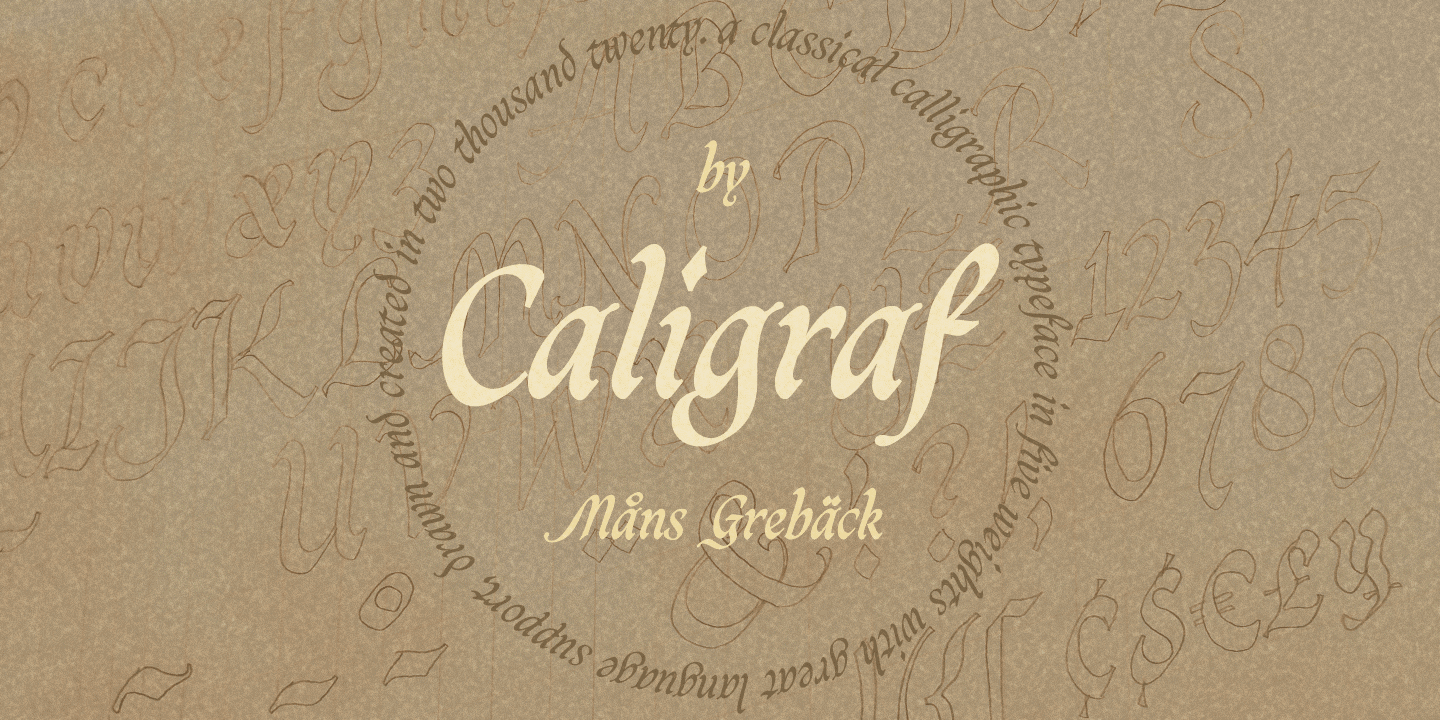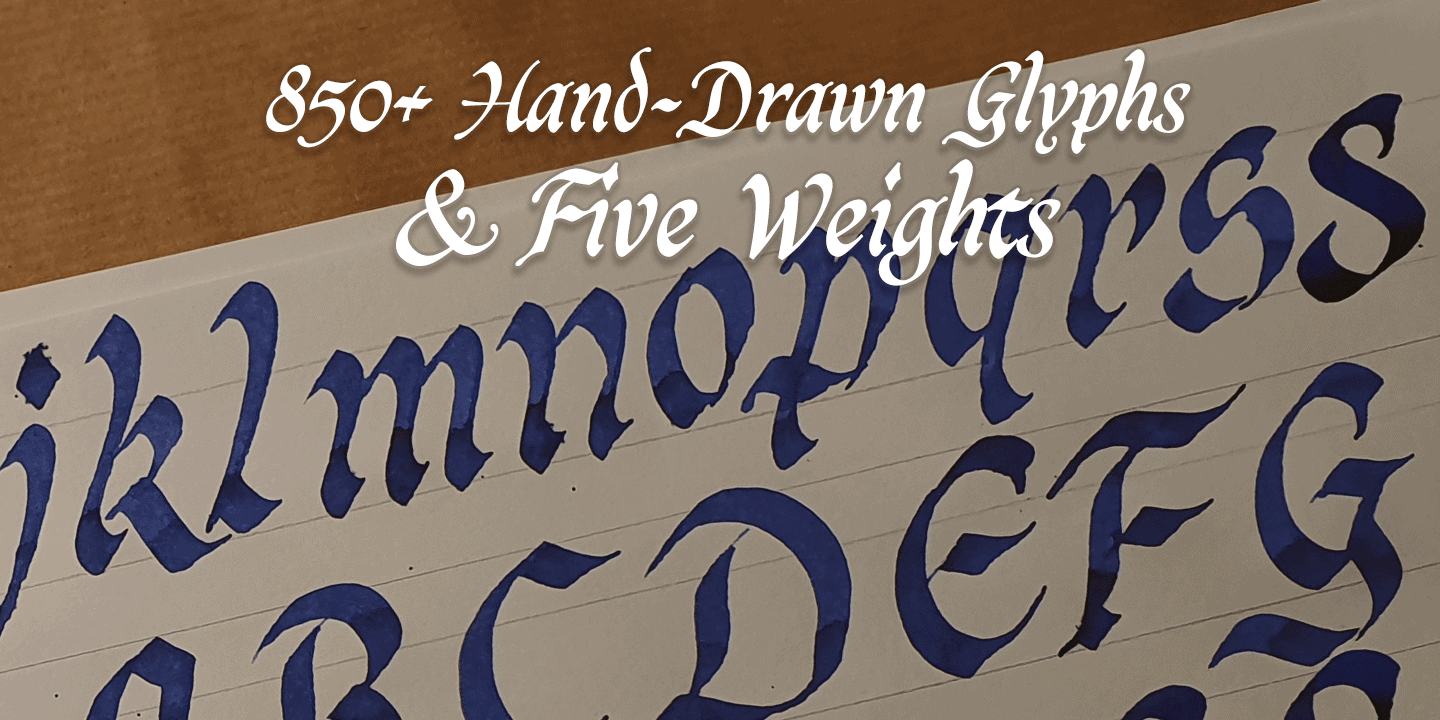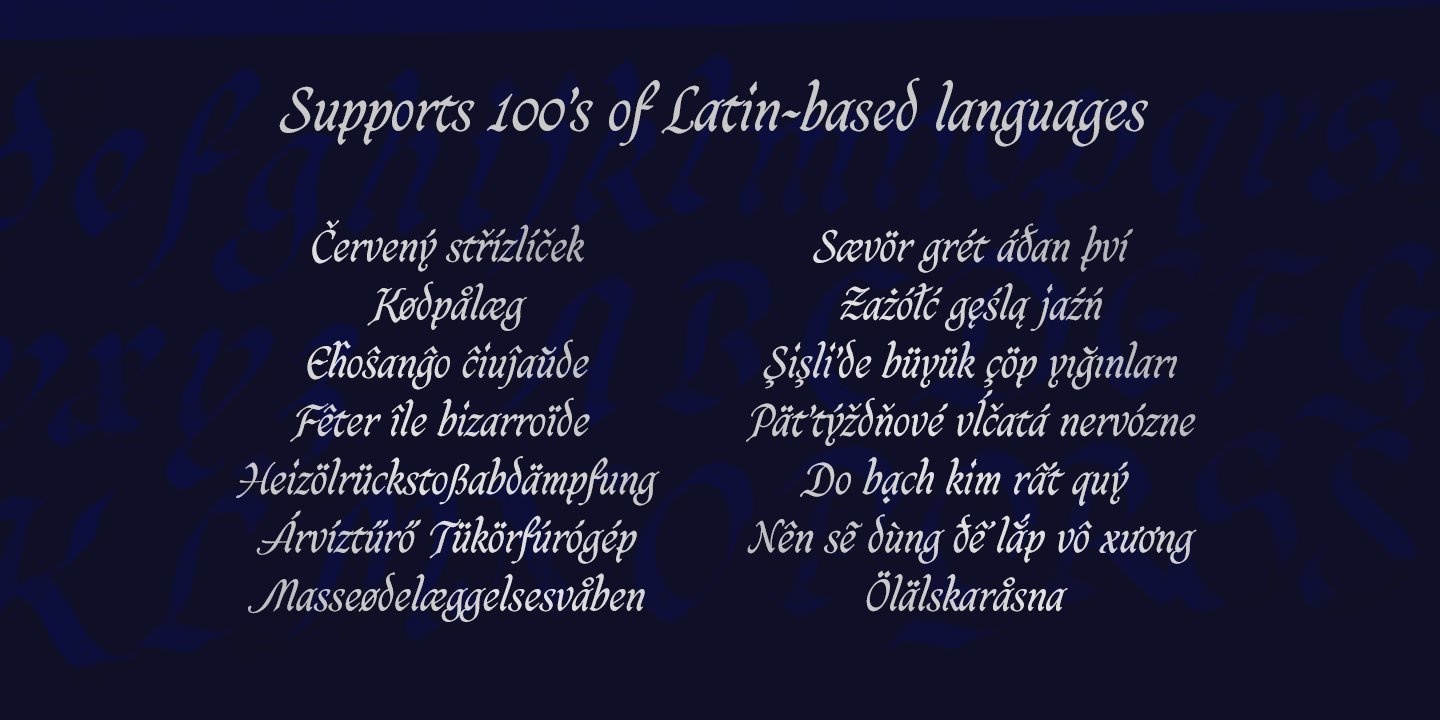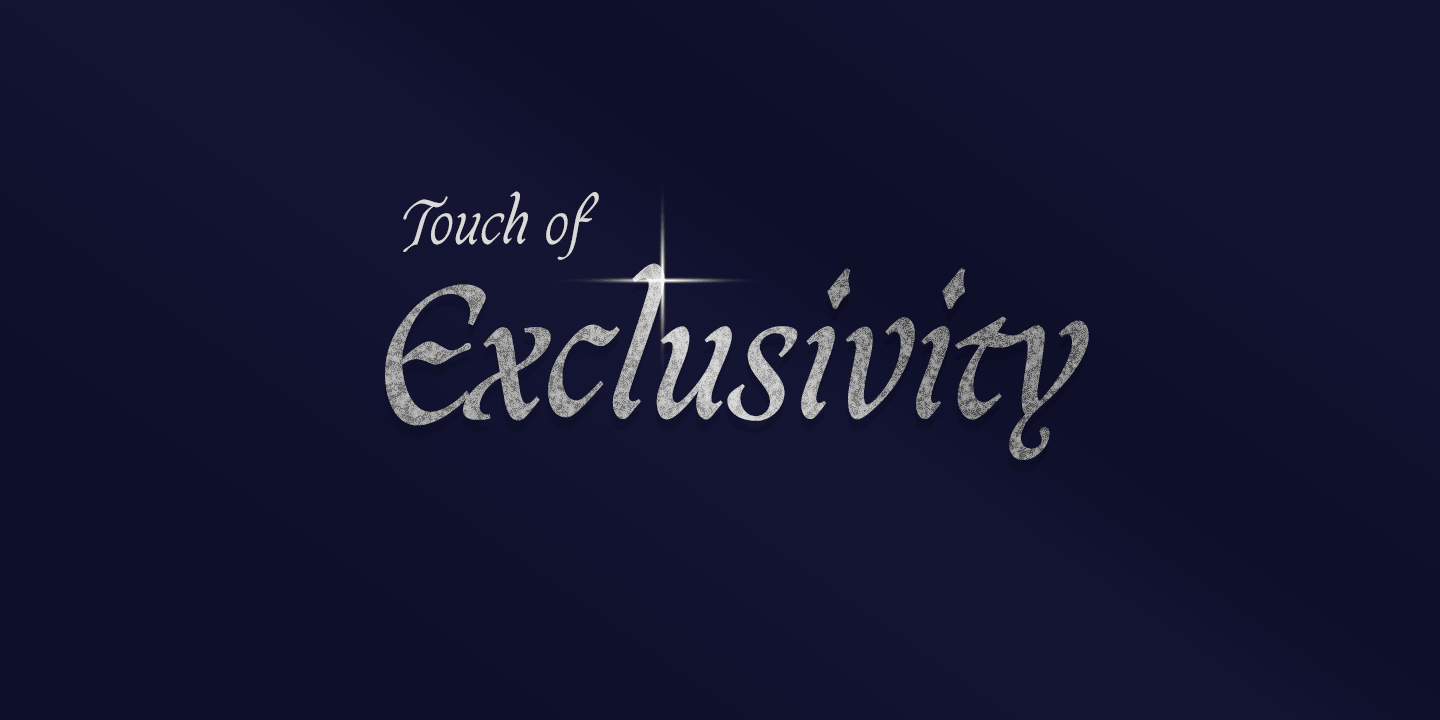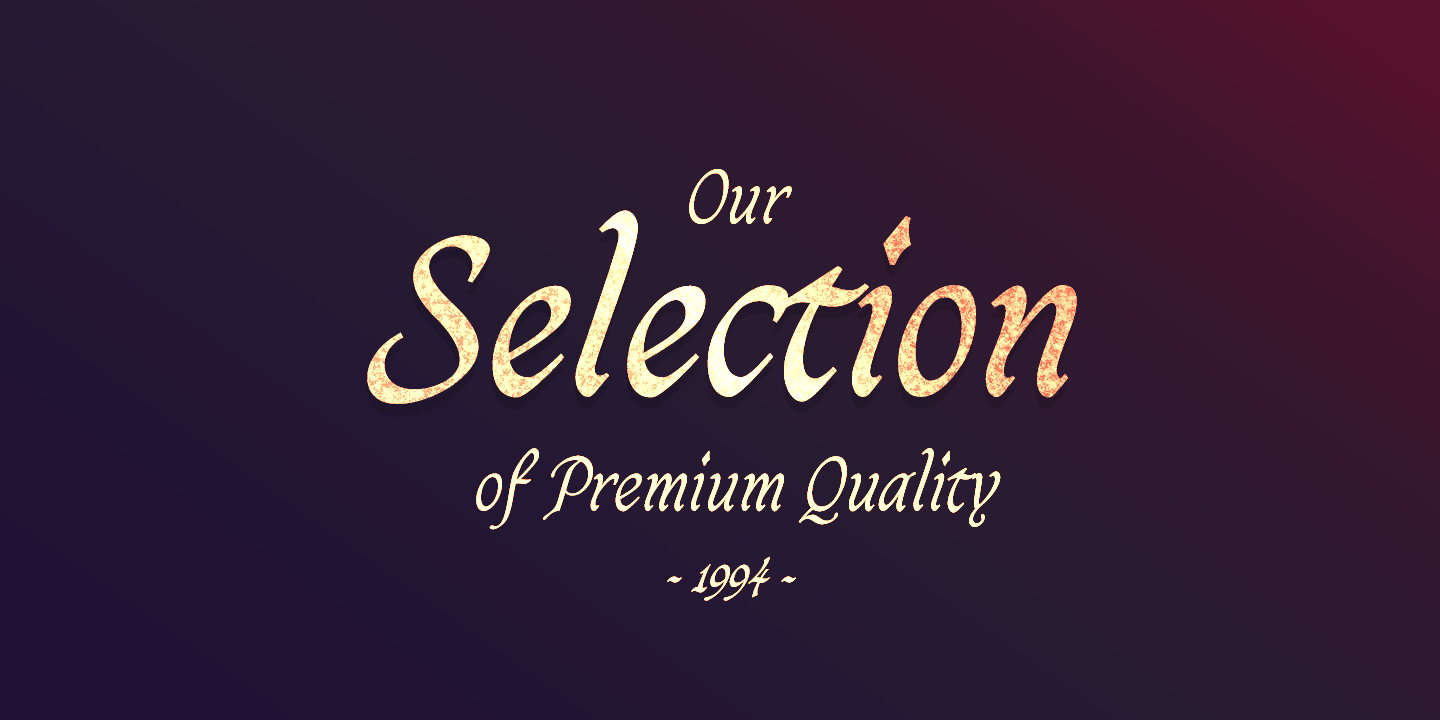
Caligraf is a classical calligraphy script. It was drawn and created by Måns Grebäck during 2019 and 2020. The character design blends traditional soft flowing handwriting with a modern, sharp look, and its angle and weight balance gives it a determined and progressive pace. Caligraf is a multistyle font family, composed of Thin, Light, Regular, Bold and Black. Being a font with over 850 glyphs, it is guaranteed to contain all characters you’ll ever need, including all punctuation and numbers. It has an extensive lingual support, covering European and Asian Latin scripts.